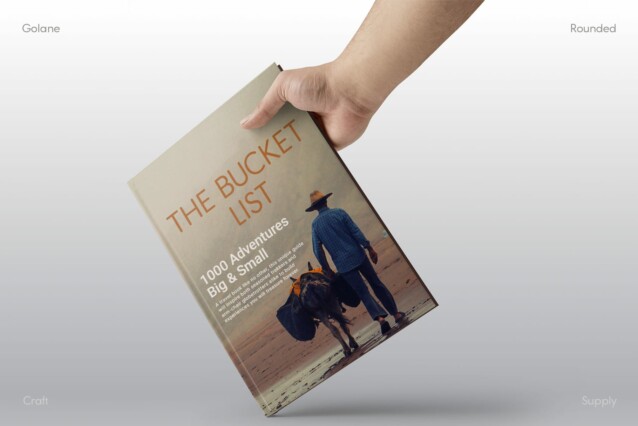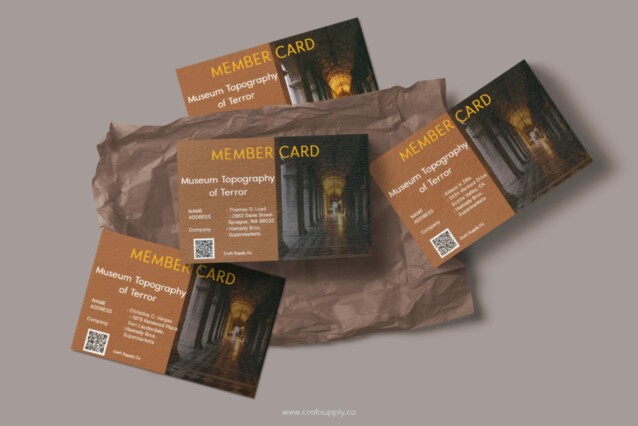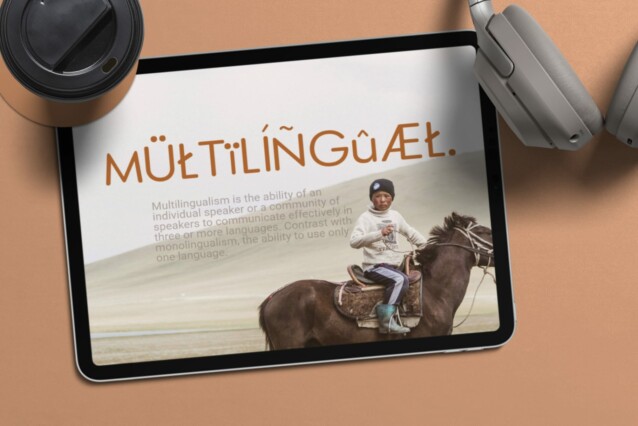
Golane Rounded Font
Golane Rounded Font: Sleek and Minimal Sans Serif. Streamlined Elegance Golane Rounded presents a sleek sans serif design with softly rounded edges, epitomizing minimalist elegance and contemporary style.
Clean Lines, Modern Appeal Featuring clean lines and a modern aesthetic, This font exudes sophistication while maintaining a minimalist charm, perfect for various design applications.